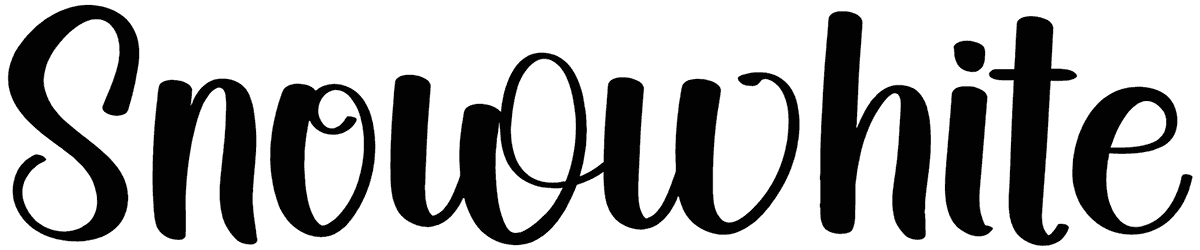
Snowwhite Font
Set this soft and delicate handwritten font on your Christmas postcard and leave a sweet first impression on your viewers. This unique thank you font, with its soft mood, supports all characters with its adorable visual. Apply the Snowwhite font on your next layout and see how pretty the final showcase will be.